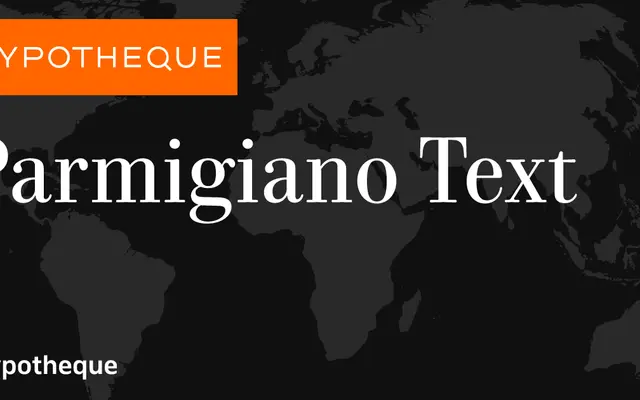
Parmigiano Text specimen from Typotheque
A text-optimised subfamily within Typotheque's Parmigiano system, a Bodoni-derived serif designed for sustained reading across optical sizes.
Parmigiano Text is the running-text cut of a larger optical-size system that spans Caption, Piccolo, Text and Headline, each tuned to its intended size range in the manner of classical punchcutter practice. Six weights from Thin to Black are provided, each with a matching italic, and a variable font is also available. The Bodoni lineage gives it high contrast and fine detail, while the text-specific optical corrections make it workable in newspaper and editorial settings where a straight Bodoni revival would fall apart.
Parmigiano is a Bodoni-inspired serif system; the Text subfamily is optimised for running text at smaller sizes, placing it within the transitional to neoclassical serif tradition following high-contrast Italian models.